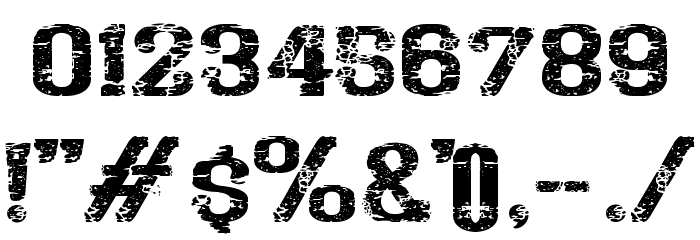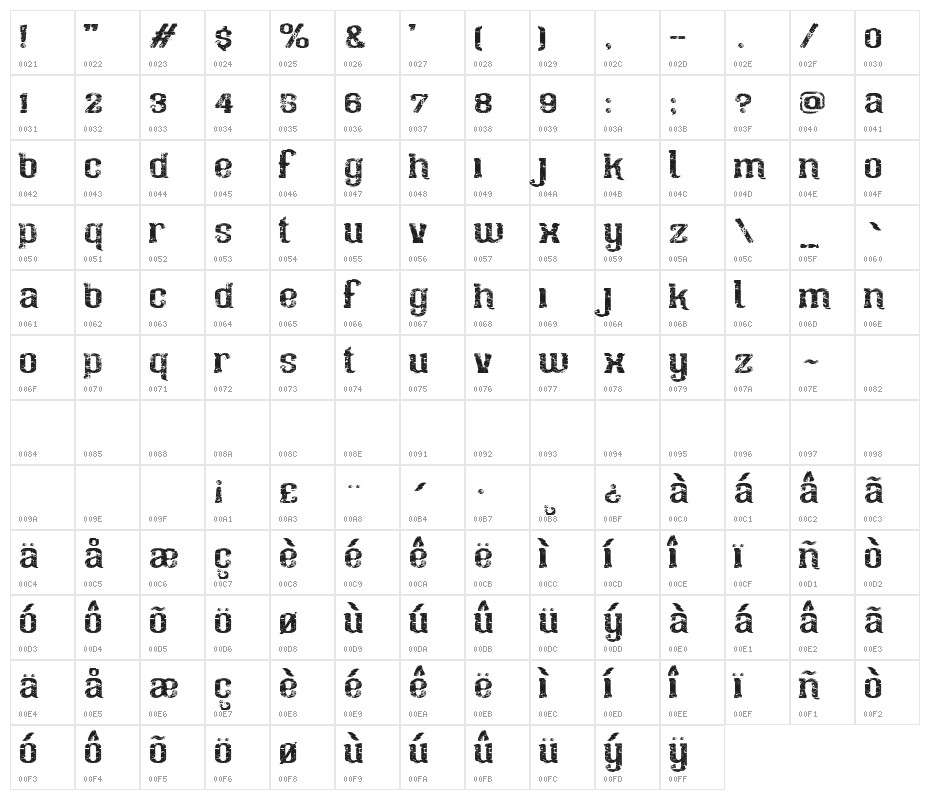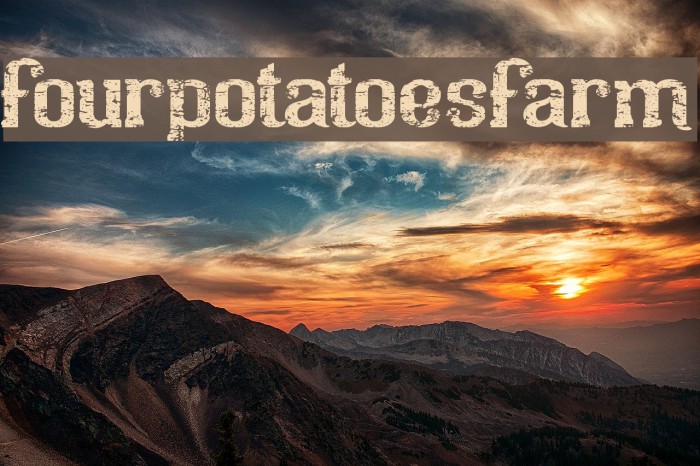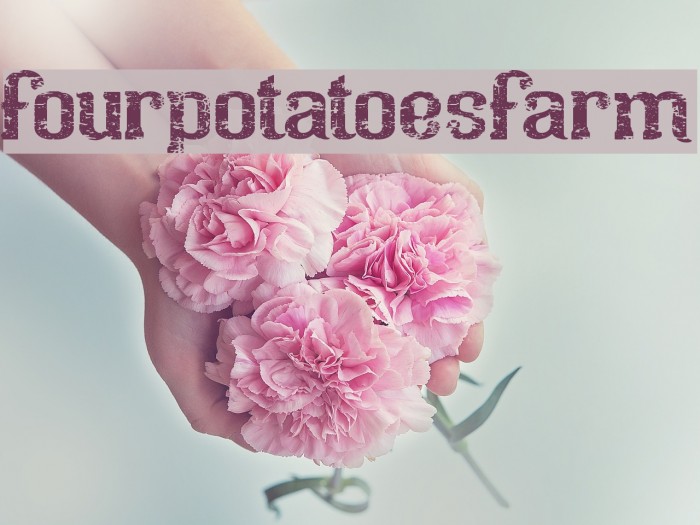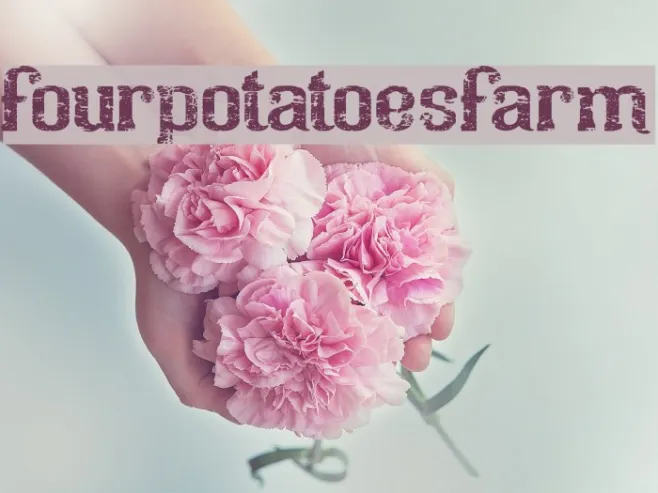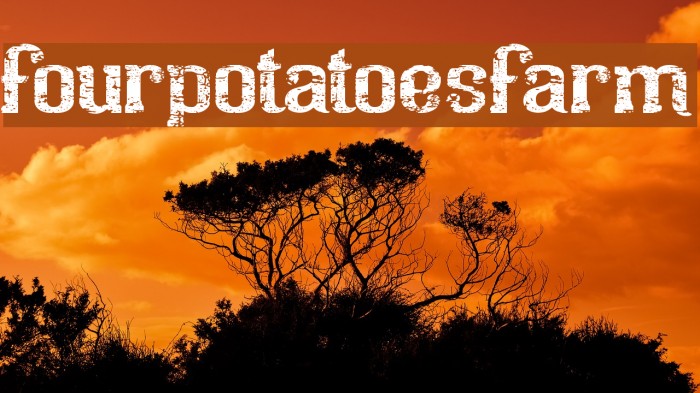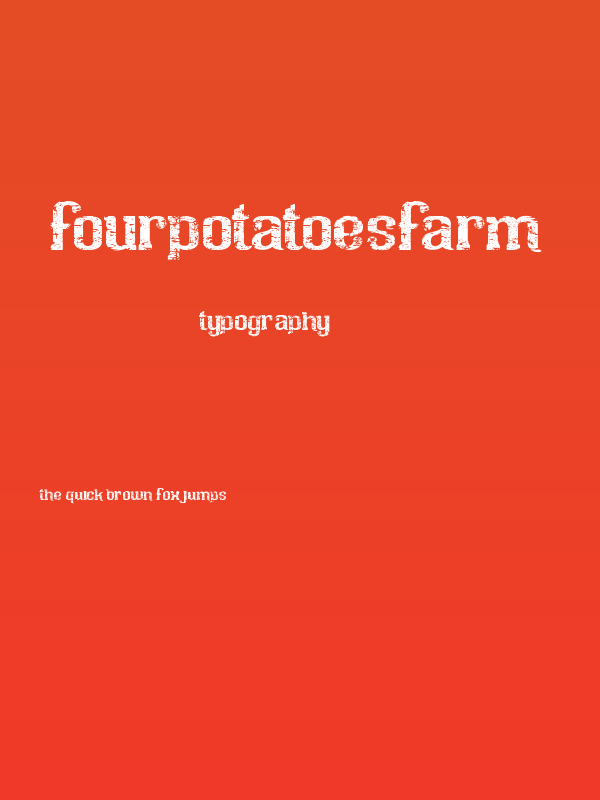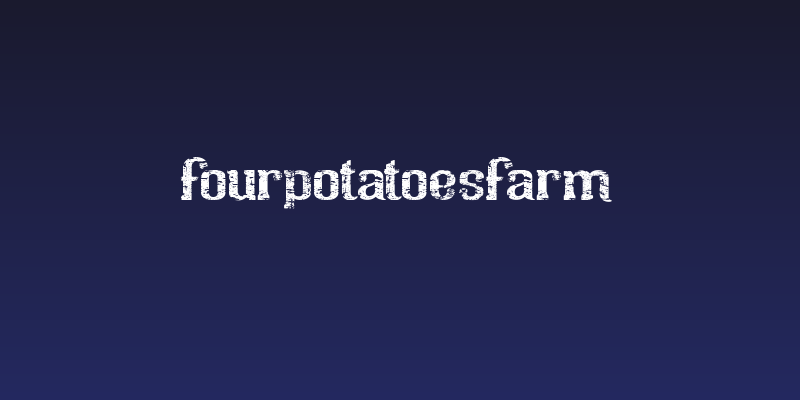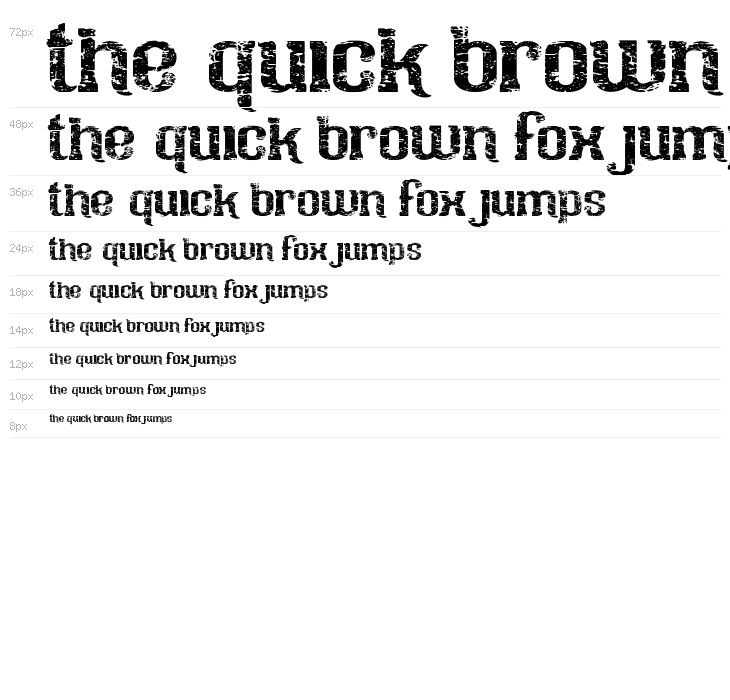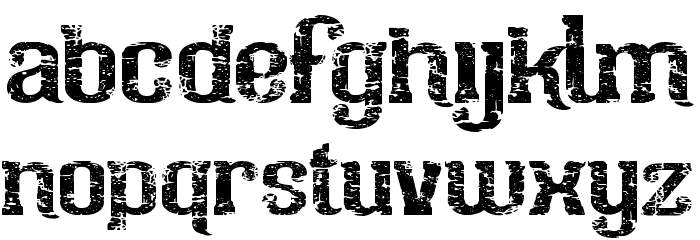
fourpotatoesfarm Description
This font features a distressed, grunge style with a bold and impactful appearance. The characters have a rough, textured look, giving them an aged and weathered feel. The uppercase and lowercase letters maintain a consistent style, with rounded edges and a slightly condensed form. The numbers and special characters follow the same aesthetic, adding to the cohesive design. This font's unique texture makes it stand out, ideal for projects that require a vintage or rugged look.
| Proposed Projects | Ideal for posters, album covers, branding for rustic or vintage-themed businesses, and any design requiring a bold, textured look. |